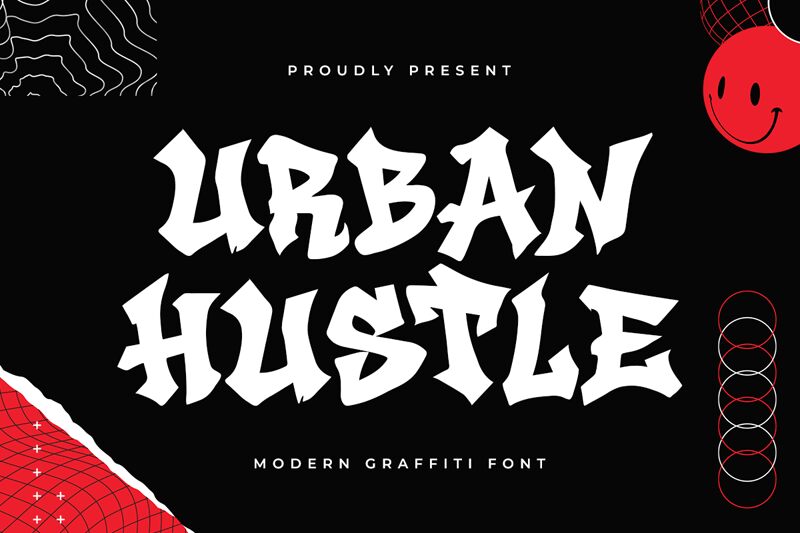
Urban Hustle font by Kong Font is a free graffiti style font teeming with urban influence. The font captures edgy, dynamic aesthetics, making it perfect for contemporary applications. Its graffiti style, bold appearance, and rebellious tone create an energetic vibe, breathing life into every word. Urban Hustle font is meant to disrupt and differentiate through its unique style in your design works.
Use Urban Hustle font in art exhibition posters, edgy magazines, urban organization branding, artworks, artistic personal works, video games design, web page development, apps, book covers, music albums, video covers, headlines, or even typographic logo designs.